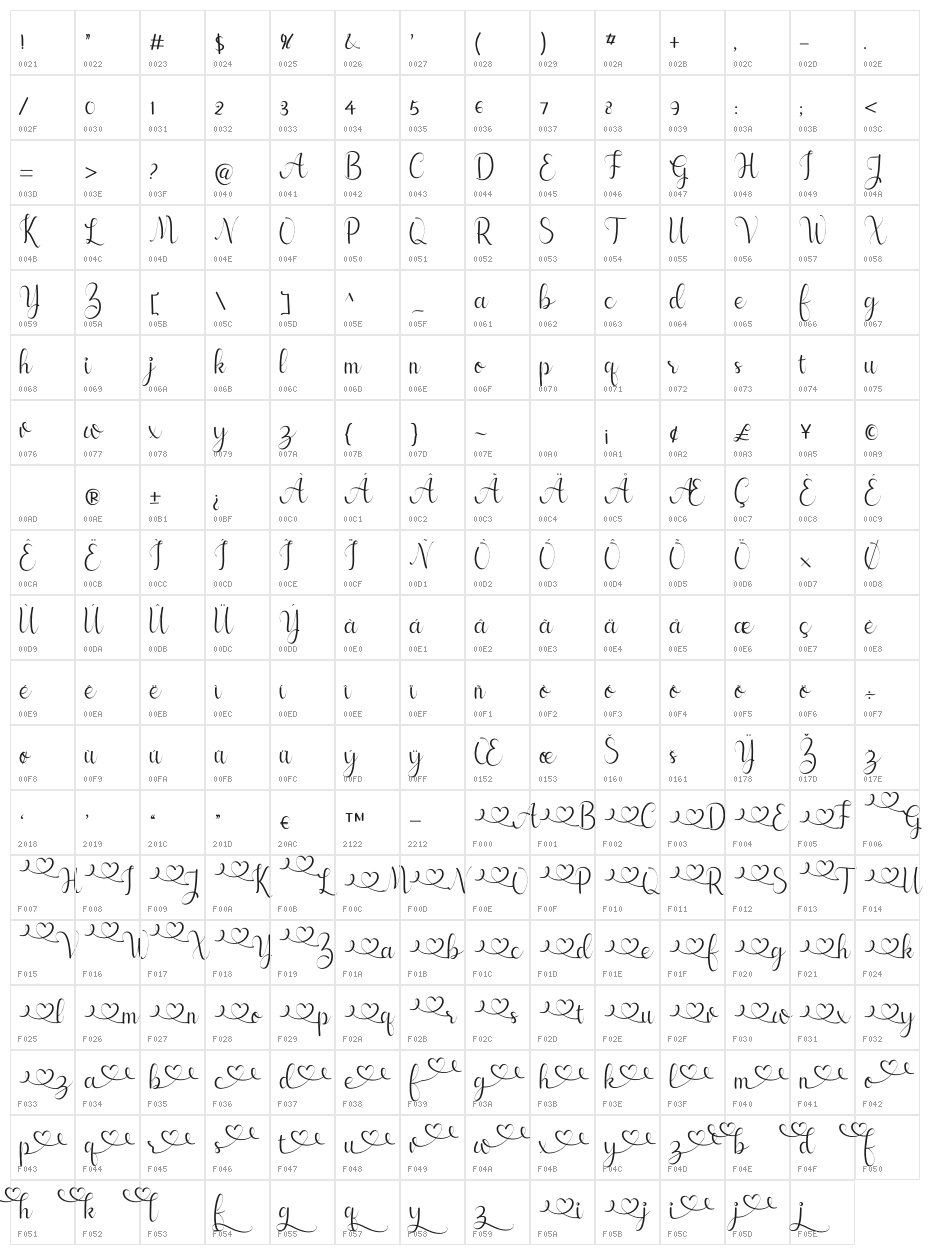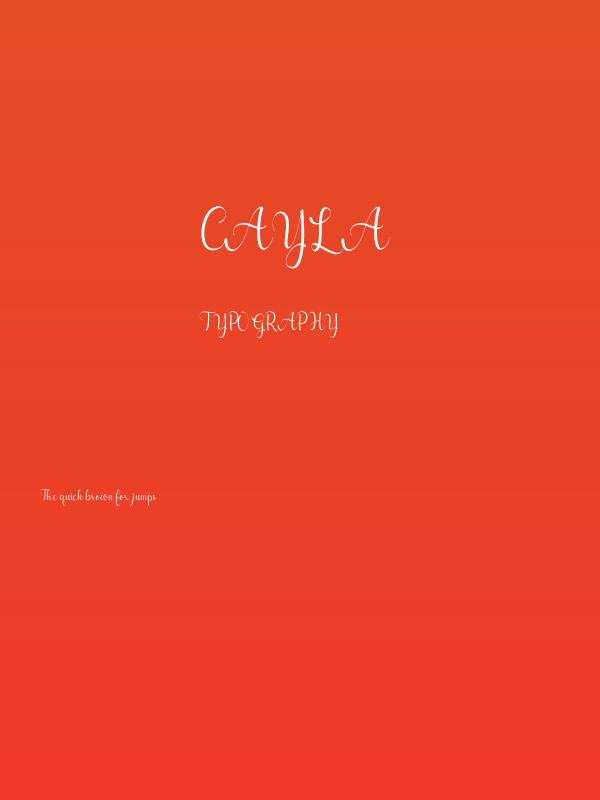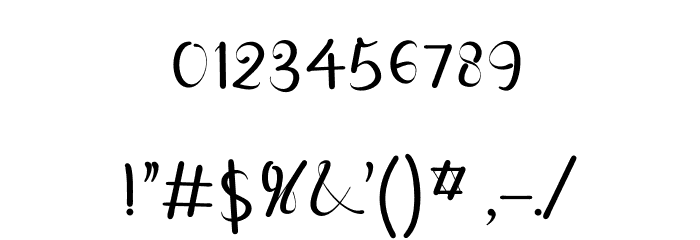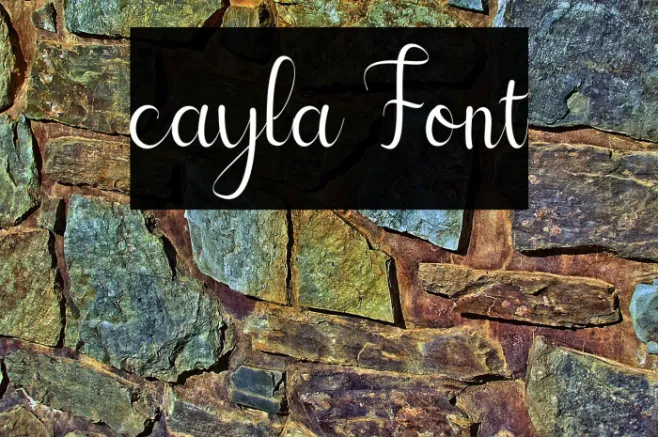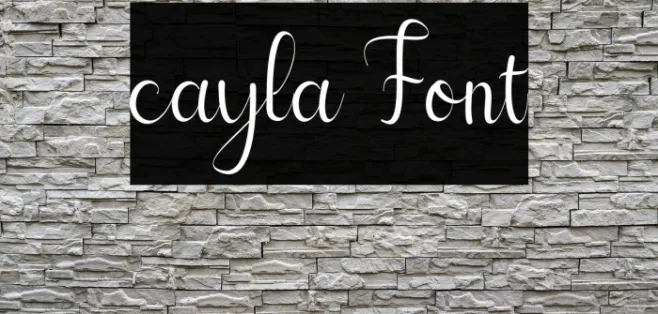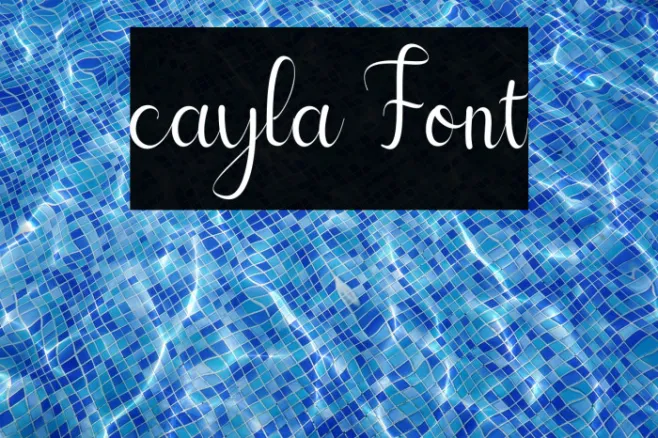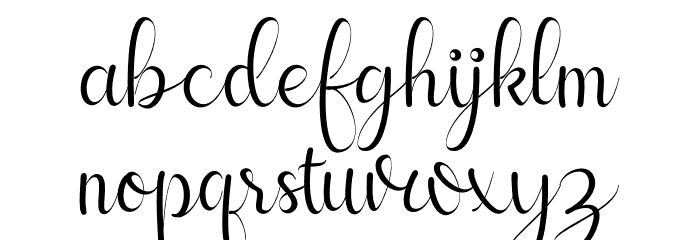
cayla Font
cayla Description
This elegant script font features flowing, cursive letters with a graceful and sophisticated appearance. The uppercase letters are characterized by their sweeping curves and loops, giving them a sense of movement and fluidity. The lowercase letters maintain a consistent style, with smooth connections between characters, enhancing the overall cohesiveness of the text. The numerals are designed to complement the letters, maintaining the same elegant style. Special characters are also included, matching the font's aesthetic with their own unique flair. This font is perfect for projects that require a touch of elegance and sophistication.
| Overall Style | Elegant, Sophisticated |
| Proposed Projects | Ideal for wedding invitations, elegant branding, greeting cards, and upscale packaging. |